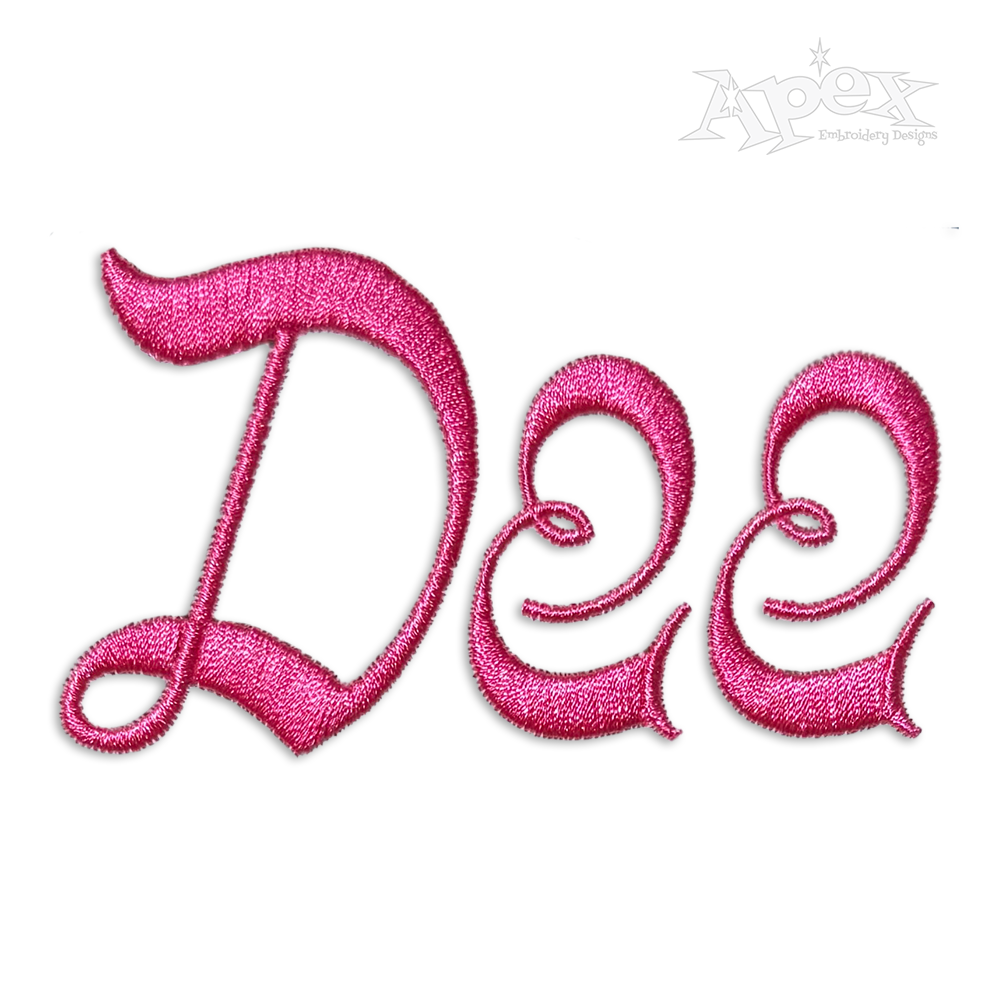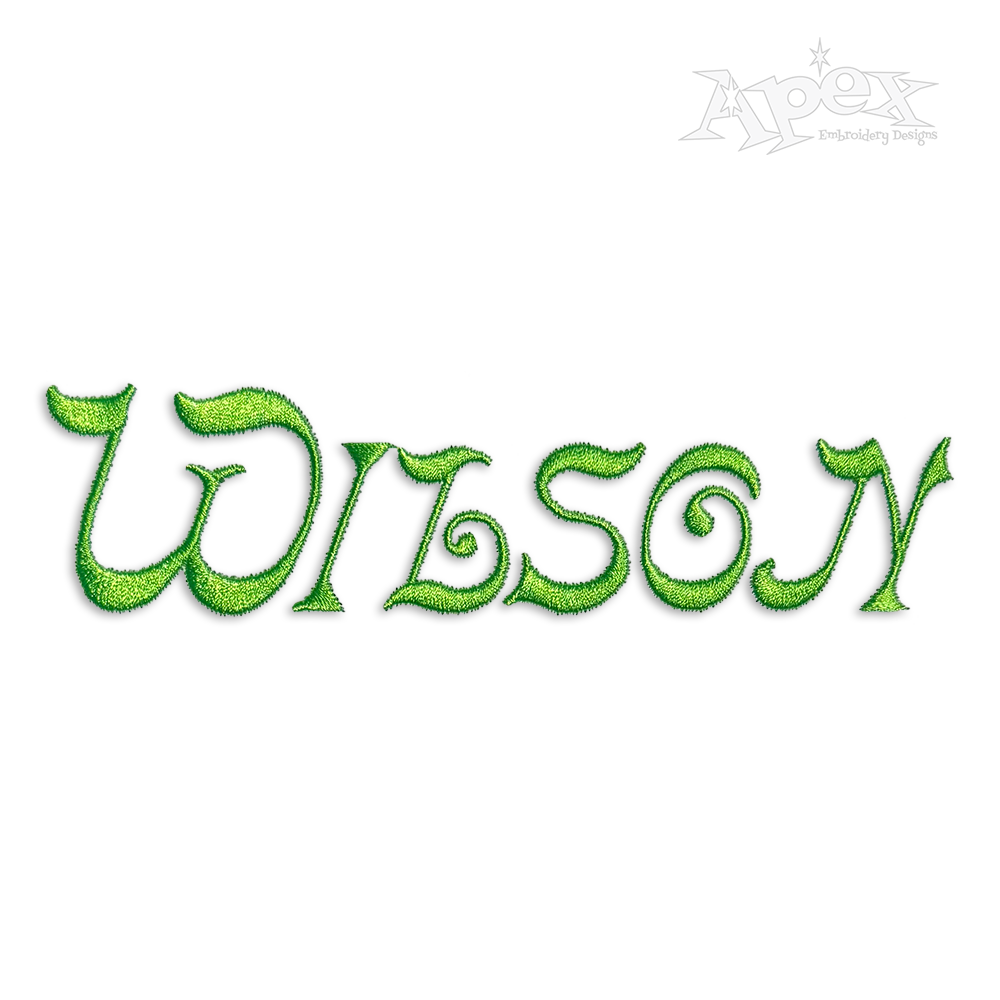
Wingsuit Embroidery Fonts
Conceived for bold distinction and kinetic energy, the Wingsuit Embroidery Font captures the aerodynamic thrill of flight with sleek, sculpted precision. When drawing these letterforms on our digitizing canvas, our ambition was to unite modern industrial architecture with the effortless fluidity of high-end monogramming. Every contour lifts cleanly off the background, projecting forward with sharp velocity and structural grace. Whether rendered in monochromatic silks or shifting variegated tones, Wingsuit brings a modern, tailored spirit to personalized heirlooms and contemporary lifestyle goods alike.
Engineered with proportional satin widths and calibrated density at every gradation, this collection delivers flawless stitch integrity across four foundational scales:
- 0.5-inch (.5") – Ultra-crisp micro-lettering calibrated for cuffs, collars, and delicate monogram borders.
- 1.0-inch (1") – Balanced and distinct, perfect for standard shirt chests, pocket monograms, and accessory tags.
- 1.5-inch (1.5") – An expressive mid-size choice tailored for bespoke resort wear, canvas pouches, and personalized gifting.
- 2.0-inch (2") – A commanding statement scale designed to showcase the full depth and flow of the letterforms on bold apparel and home textiles.
Project Ideas for Wingsuit
Wingsuit Craft & Letterform Details
The distinctive artistry of Wingsuit lies in its calculated stitch architecture. Each glyph is constructed with sweeping satin columns that curve gracefully, dynamically changing angle to refract ambient light across the thread surface. We carefully programmed specialized stabilizing underlays that build internal loft while shielding delicate weaves from puckering, letting the satin stitches crown proudly over the fabric.
While striking in classic solid embroidery threads, Wingsuit truly comes alive when paired with multi-tonal filaments. In our design studio stitchouts, we showcased this alphabet using Sulky Blendables #2243; the shifting tones glide effortlessly along the directional path of each stroke, creating a subtle ombré illusion that highlights the aerodynamic anatomy of every letter.